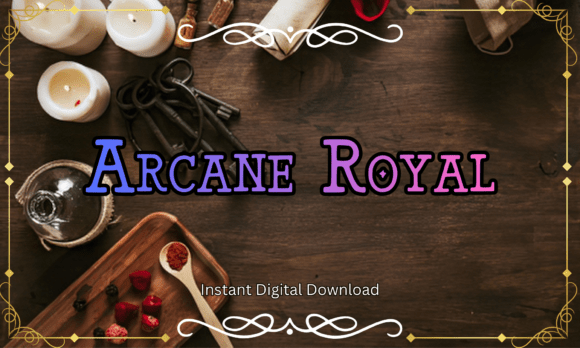
Introduction to Arcane Royal Font
Step into a world of mystery and magic with Arcane Royal, a bold fantasy display font inspired by ancient rituals, royal courts, and arcane symbols.
Key Features of Arcane Royal Font
Why Choose Arcane Royal Font?